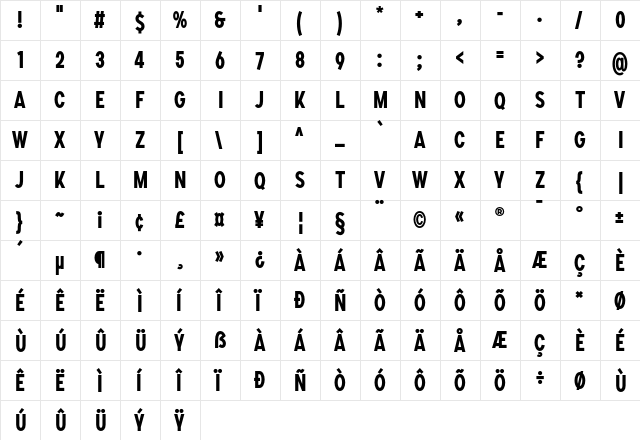
SONGER Condensed Bold
| Foundry | Alexander Pravdin |
| Designer | Alexander Pravdin |
Design Context for SONGER Condensed Typeface
SONGER Condensed takes a measured approach to typography — its balanced proportions and neutral character make it a reliable workhorse for both digital and print work. The heavy weight commands attention and anchors typographic hierarchies. Its narrow stance lets it pack a punch even in space-constrained designs.